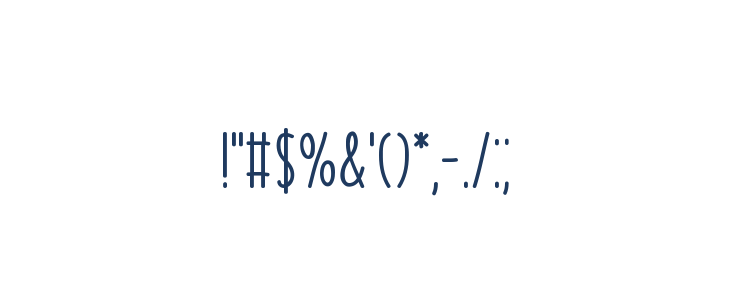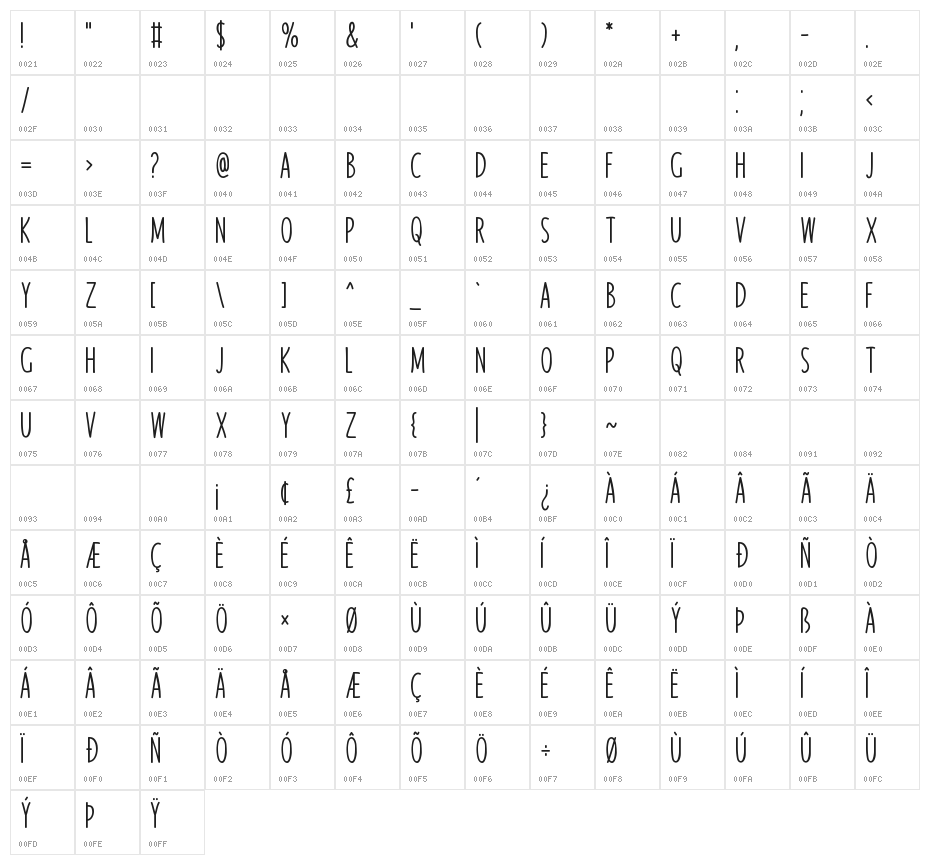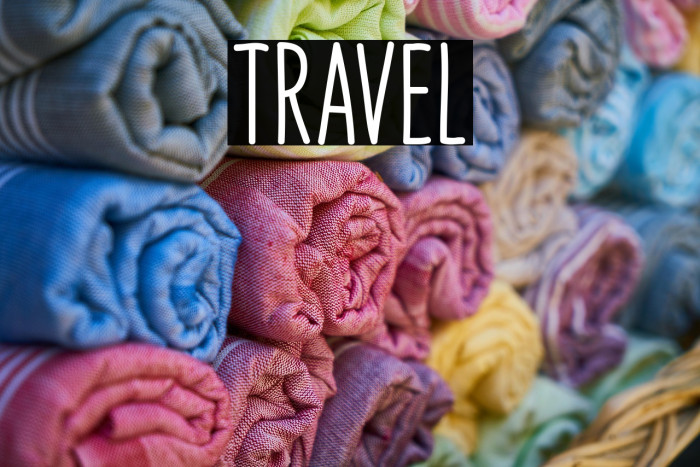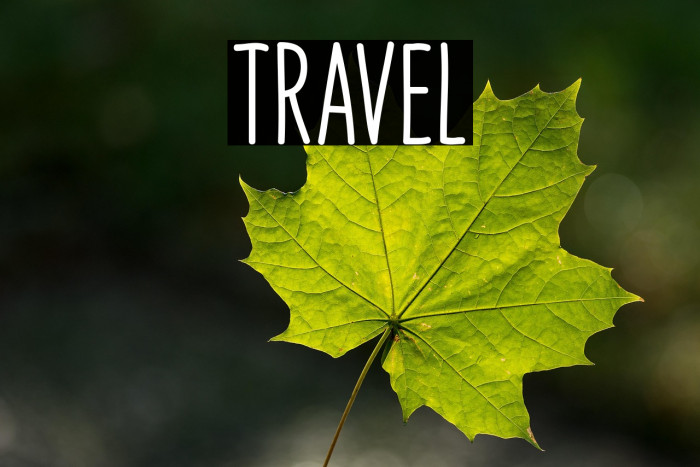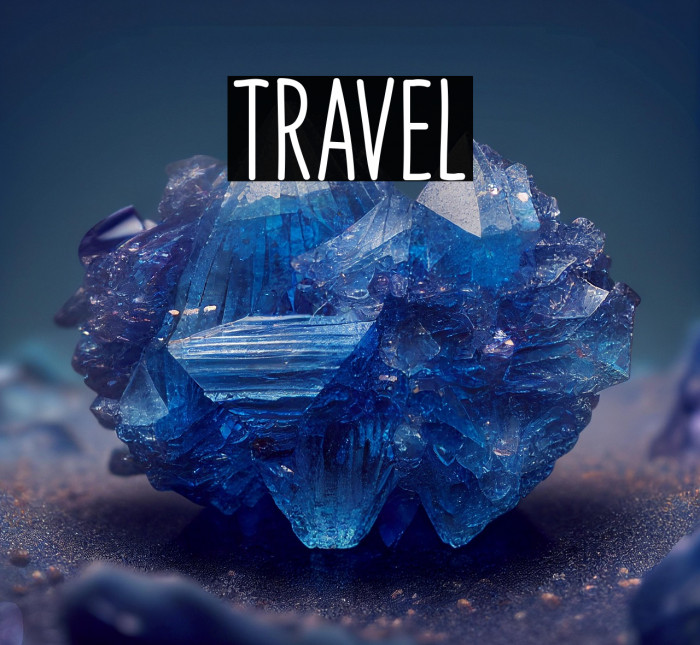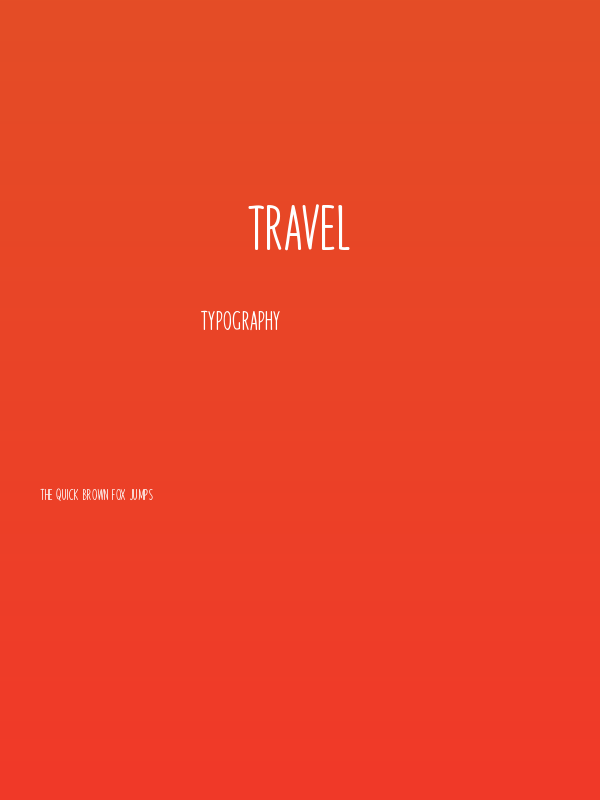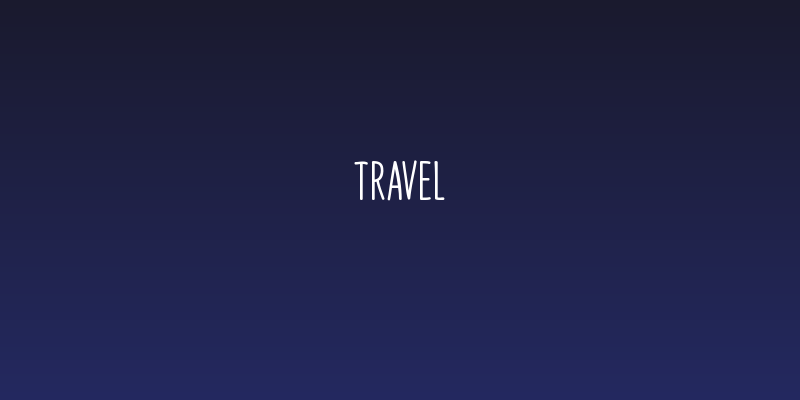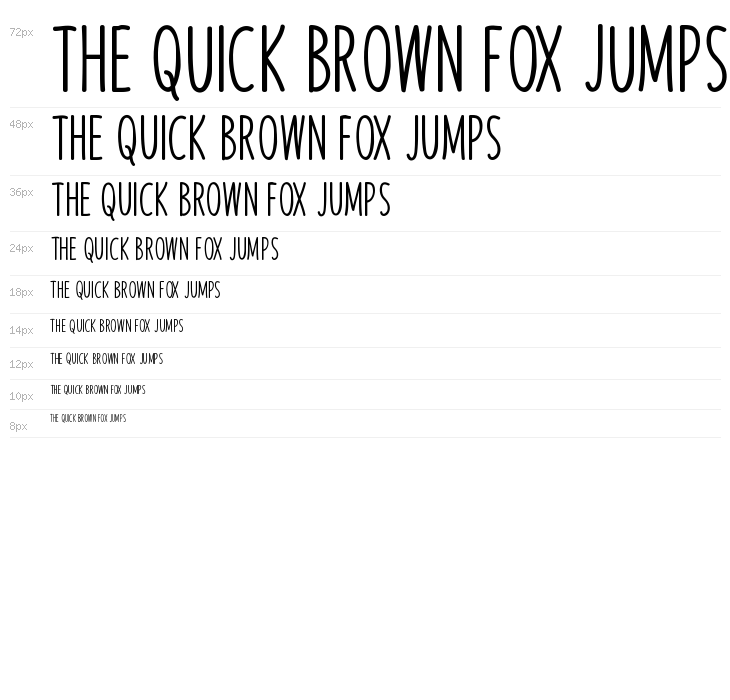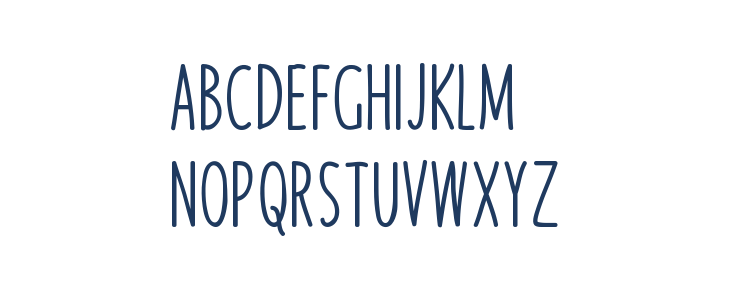
Travel Font
Travel Description
This font features a playful and casual style with a handwritten appearance. The characters are slightly elongated with a consistent stroke width, giving it a clean and approachable look. The uppercase and lowercase letters maintain a uniform height, contributing to its legibility. The font includes a full set of uppercase and lowercase letters, numbers, and a variety of special characters. Its informal and friendly aesthetic makes it suitable for projects that require a personal touch.
| Proposed Projects | Ideal for greeting cards, invitations, children's books, and casual branding projects. |